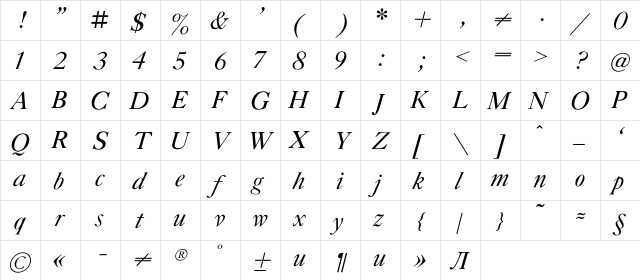
GazetaTitulC Italic
Design Context for GazetaTitulC Typeface
GazetaTitulC offers clean, dependable letterforms without strong stylistic allegiance, making it a practical choice for designers who need flexibility. Its italic angle brings a sense of urgency and motion to the letterforms.
Pro Tip: Try GazetaTitulC for annotation and caption copy alongside an upright companion — the contrast in angle creates a dynamic but ordered typographic system.